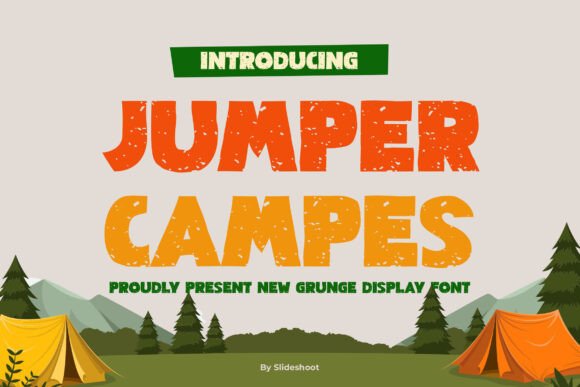
Jumper Campes Font: Unleash the Wild Side of Your Designs
Are you looking for a font that captures the essence of nature and the thrill of camping adventures? Look no further than Jumper Campes Font, a playful grunge display font that brings the wilderness to life. Inspired by the great outdoors, this font is perfect for outdoor-themed designs, rustic branding, or fun, creative projects.
The Inspiration Behind Jumper Campes Font
Jumper Campes Font is a unique typeface that draws inspiration from the natural world. Its creator aimed to capture the spirit of adventure and freedom that comes with exploring the wilderness. The font’s design is influenced by the textures and shapes found in nature, giving it a distinctive, earthy feel.
From the rough, distressed textures to the bold, chunky shapes, Jumper Campes Font embodies the carefree and adventurous vibe of camping and outdoor escapades. Whether you’re designing a logo for an outdoor gear company or creating a poster for a music festival, this font is sure to add a touch of wildness to your project.
Key Features of Jumper Campes Font
So, what makes Jumper Campes Font so special? Here are some of its key features:
- Distressed textures: Jumper Campes Font boasts a delightfully rough, grunge-inspired texture that gives it a worn, vintage look.
- Bold shapes: The font’s chunky, bold shapes make it perfect for headlines, titles, and other display text.
- Playful feel: Jumper Campes Font has a fun, carefree vibe that’s perfect for creative projects and outdoor-themed designs.
- Highly legible: Despite its distressed texture, Jumper Campes Font remains highly legible, even at smaller sizes.
Use Cases for Jumper Campes Font
Jumper Campes Font is a versatile typeface that can be used in a wide range of design projects. Here are some ideas to get you started:
- Outdoor gear branding: Use Jumper Campes Font to create a logo or label for your outdoor gear company, and instantly convey a sense of adventure and ruggedness.
- Camping and hiking designs: Whether you’re creating a poster, flyer, or social media graphic, Jumper Campes Font is perfect for promoting camping and hiking events or destinations.
- Music festival posters: Add a touch of wildness to your music festival posters with Jumper Campes Font, and create a design that’s sure to stand out.
- Food and beverage branding: Jumper Campes Font can also be used to create rustic, outdoorsy branding for food and beverage companies, such as craft breweries or artisanal food producers.
Tips for Using Jumper Campes Font
To get the most out of Jumper Campes Font, here are some tips to keep in mind:
- Use it boldly: Jumper Campes Font is designed to make a statement, so don’t be afraid to use it in bold, eye-catching ways.
- Experiment with colors: The font’s distressed texture looks great in a range of colors, from earthy tones to bright, bold hues.
- Pair it with contrasting fonts: Jumper Campes Font works well when paired with simpler, more elegant fonts that provide a nice contrast to its bold, grunge-inspired texture.
Jumper Campes Font is a unique and adventurous typeface that’s perfect for outdoor-themed designs, rustic branding, or fun, creative projects. With its distressed textures, bold shapes, and playful feel, this font is sure to bring the wilderness to life in your designs. So why not give it a try and see how Jumper Campes Font can add a touch of wildness to your next project?
- What is Jumper Campes Font? Jumper Campes Font is a playful grunge display font inspired by nature and camping adventures.
- What makes Jumper Campes Font unique? Jumper Campes Font boasts a distinctive, distressed texture and bold shapes that give it a rugged, outdoorsy feel.
- What types of projects is Jumper Campes Font suitable for? Jumper Campes Font is perfect for outdoor-themed designs, rustic branding, music festival posters, and other creative projects.